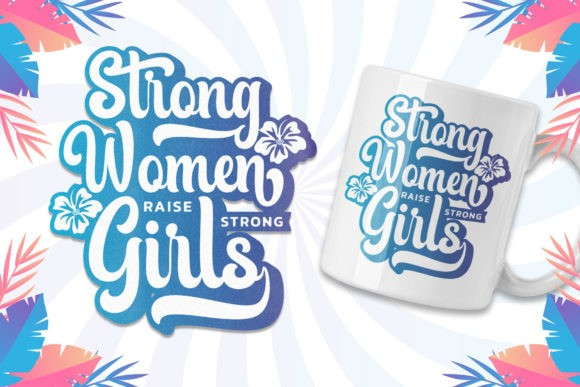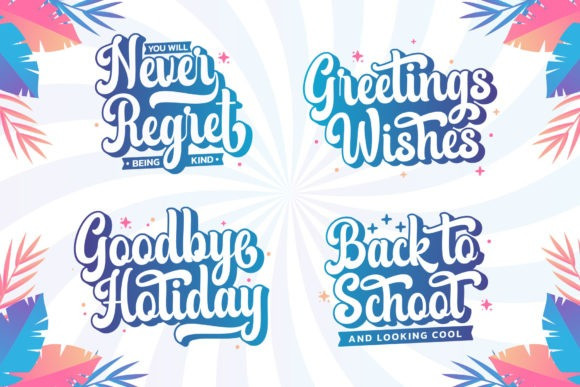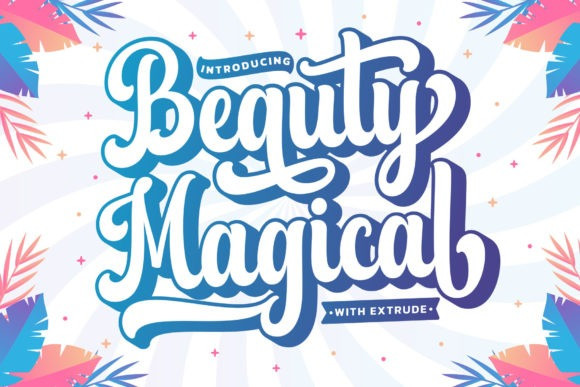
Beauty Magical Font
Beauty Magical Font is a gorgeous and playful script font crafted to add tons of stylish character to your designs. This font is PUA encoded, which means you can access all of the glyphs and swashes with ease!